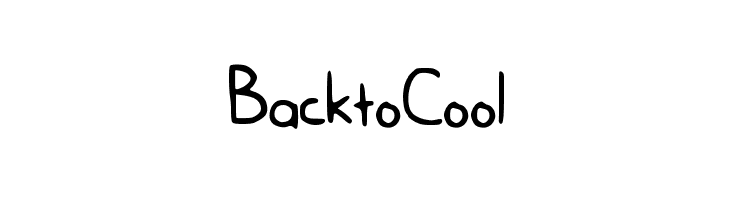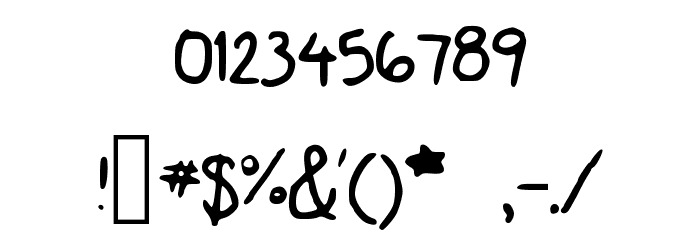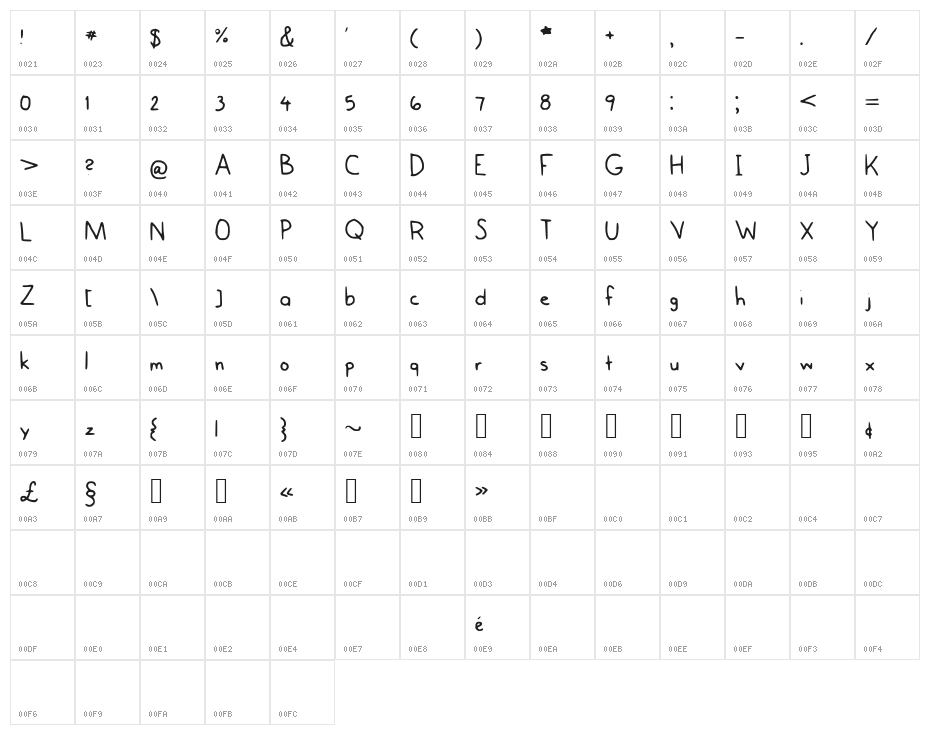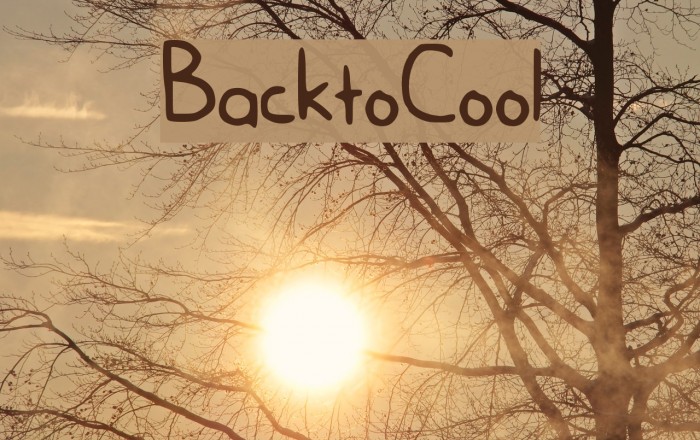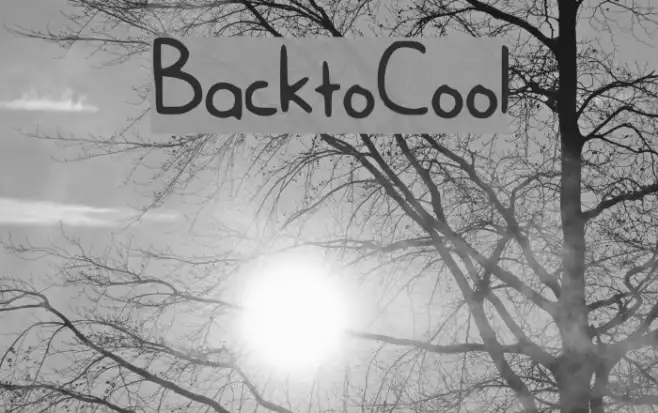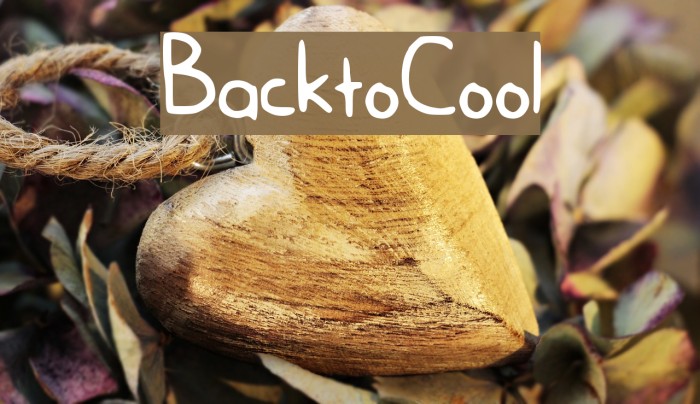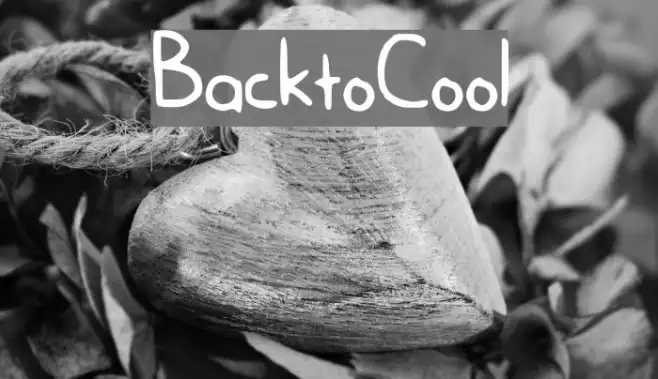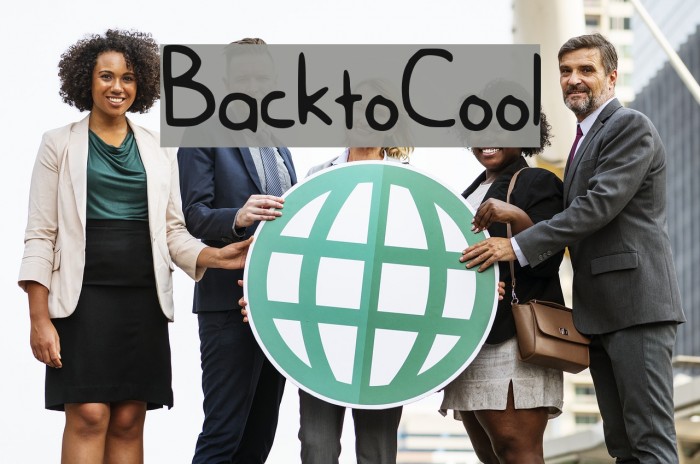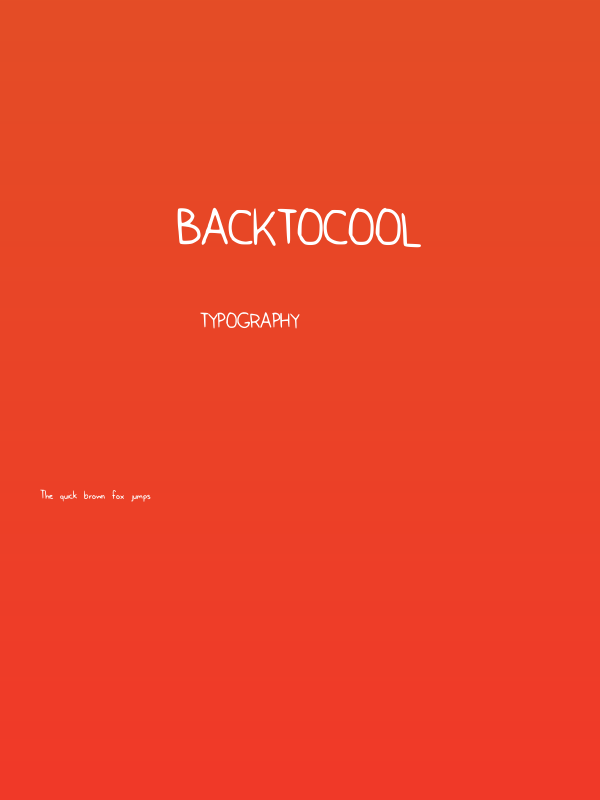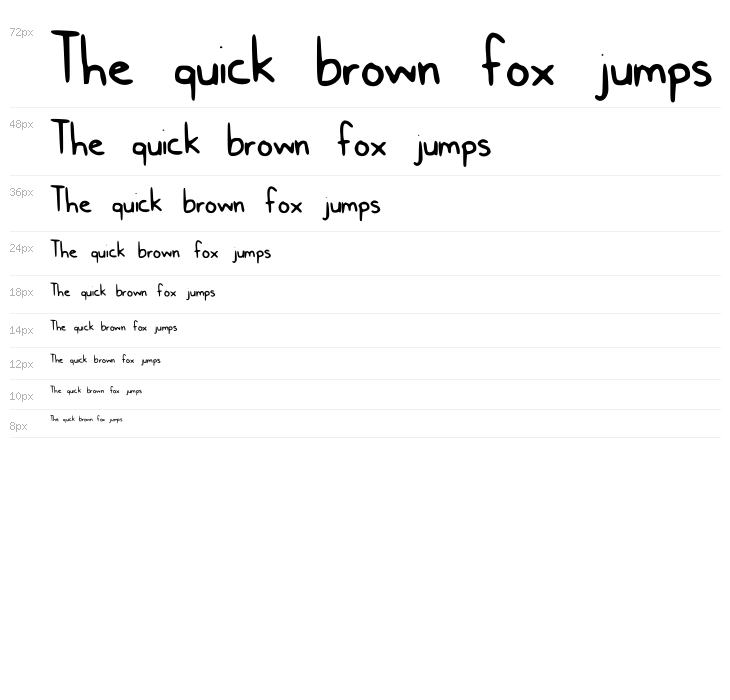
BacktoCool Font
BacktoCool Description
This playful and informal font features a handwritten style with a casual and friendly appearance. The letters are slightly irregular, adding to the charm and approachability of the design. The strokes are consistent in weight, providing a uniform look across all characters. The font includes both uppercase and lowercase letters, numerals, and a variety of special characters, making it versatile for different uses. Its rounded edges and smooth curves contribute to a relaxed and easy-going aesthetic, perfect for projects that require a personal touch.
| Use Case | Headlines, Informal text, Branding |
| Proposed Projects | Ideal for children's books, greeting cards, casual branding, and social media graphics. |